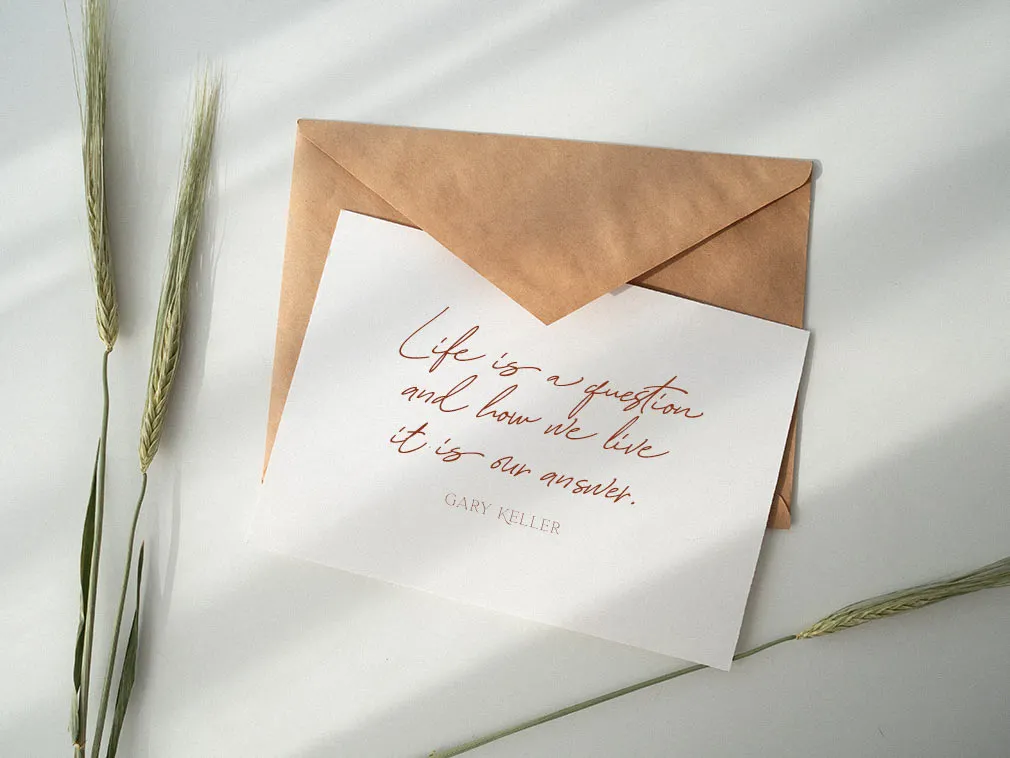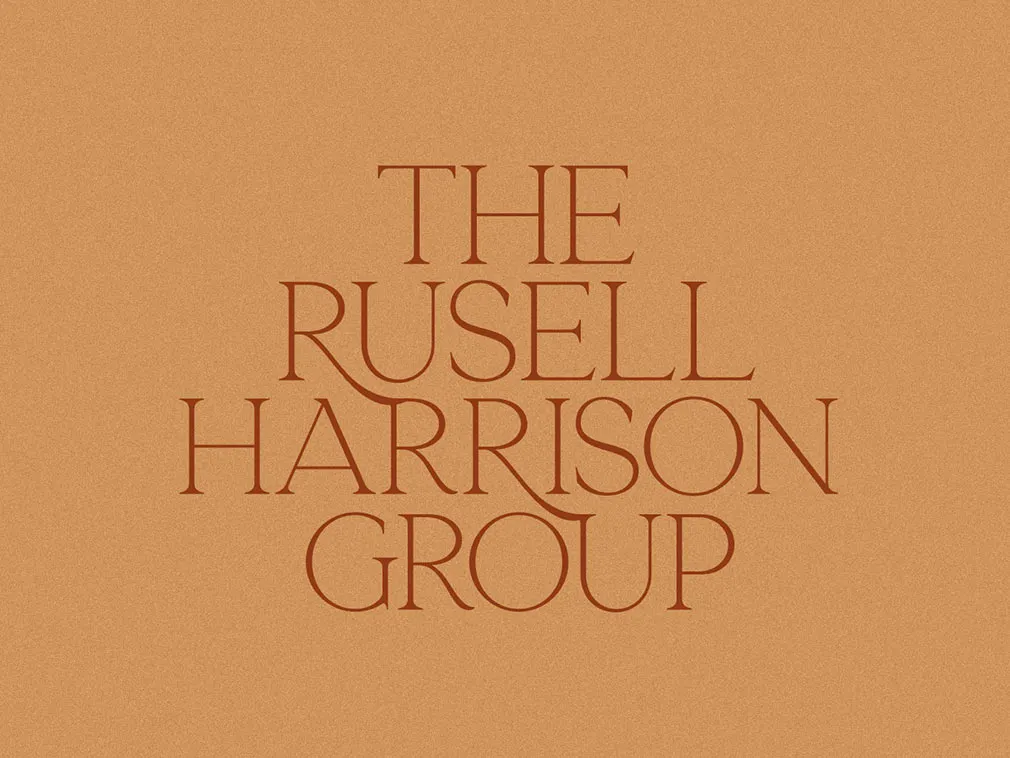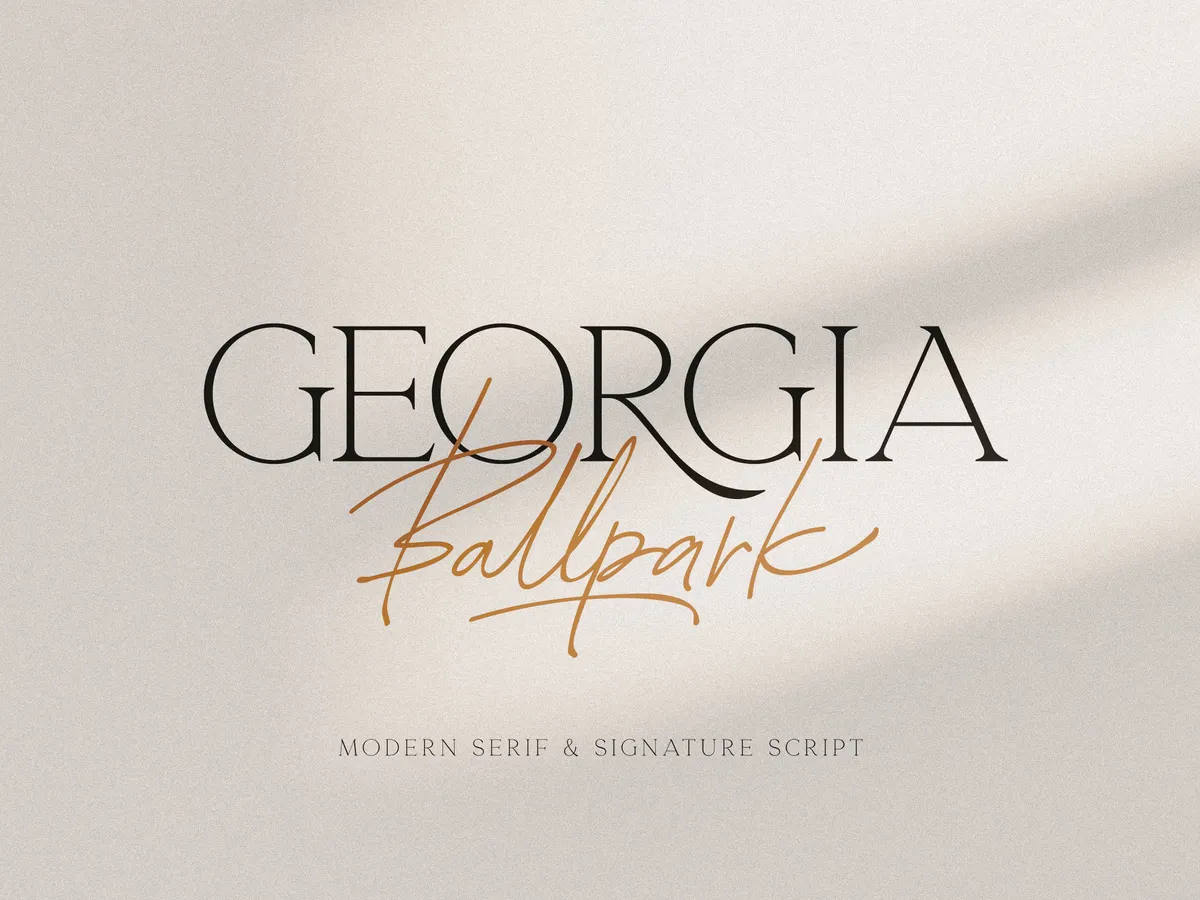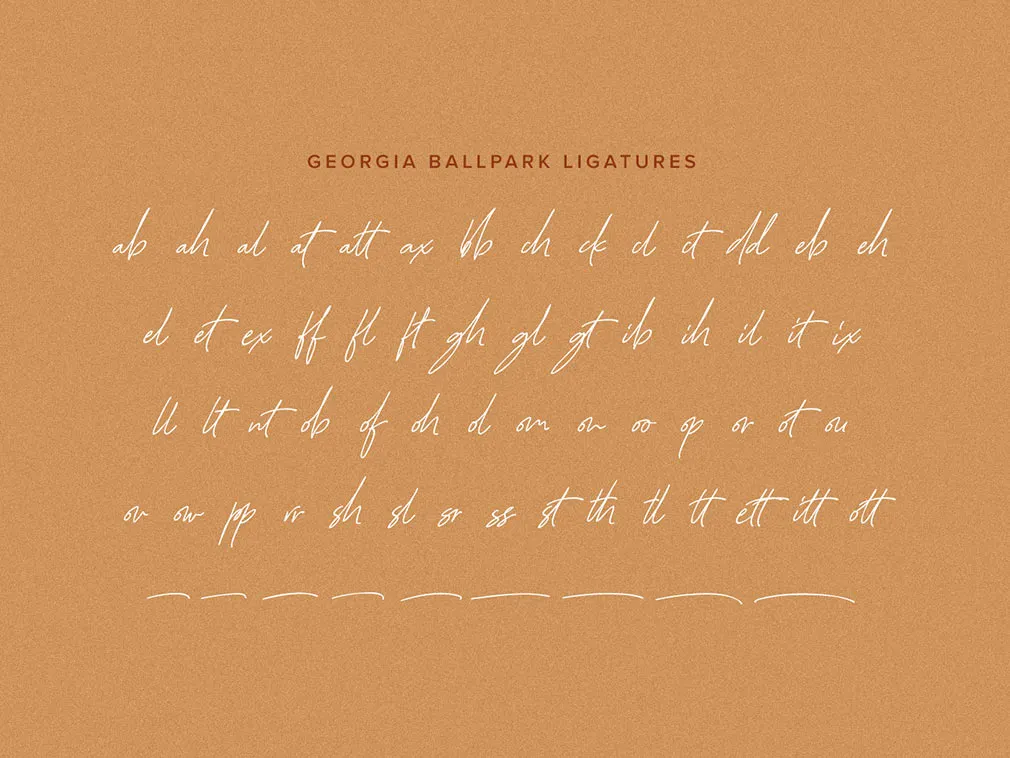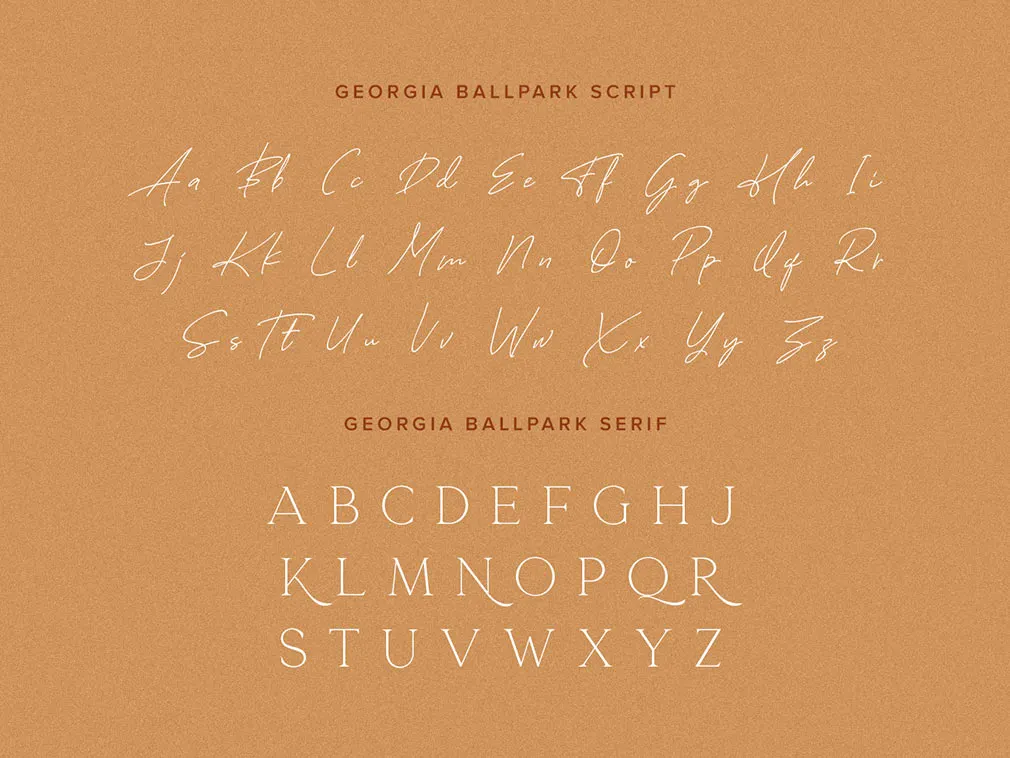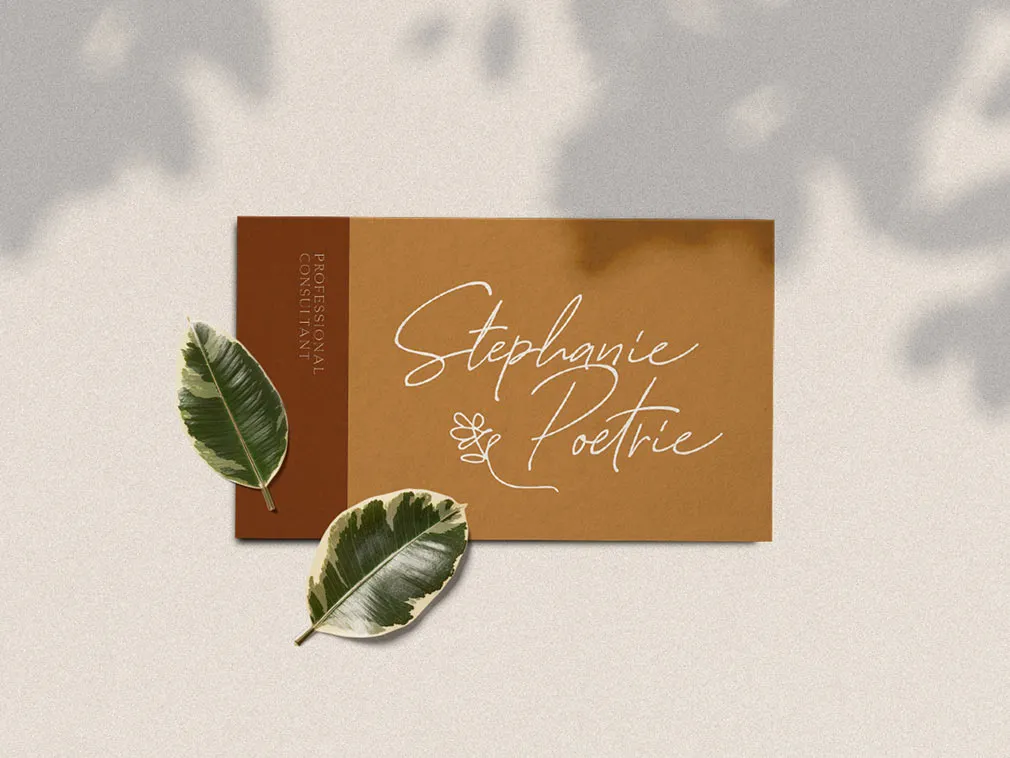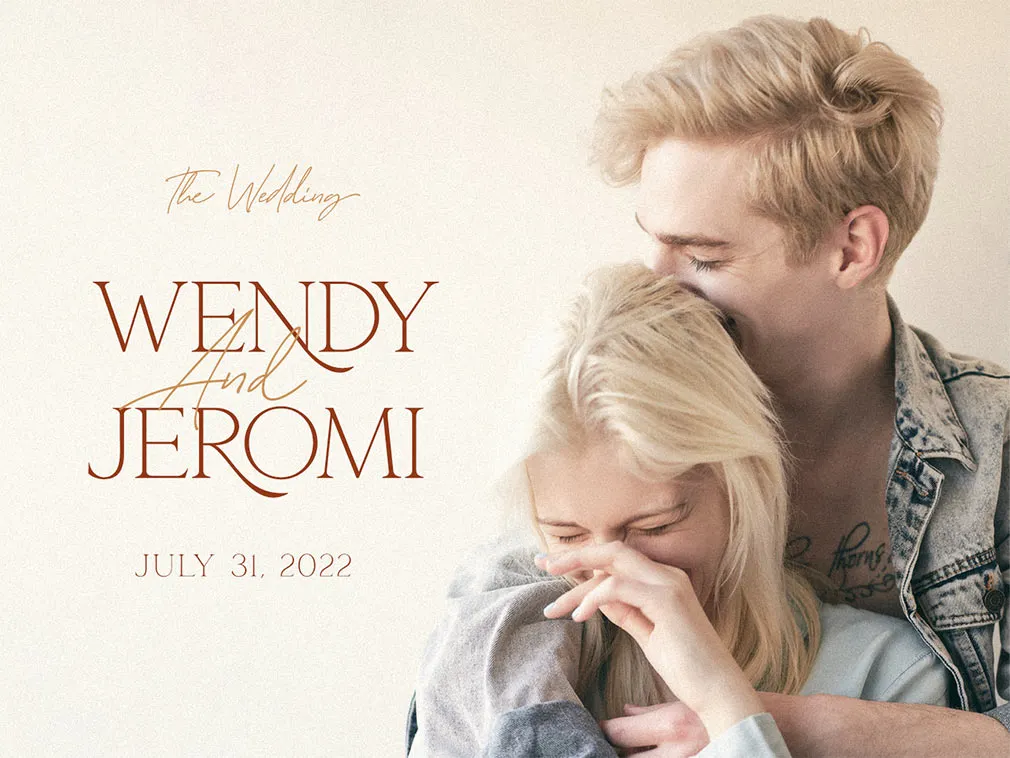
Georgia Ballpark Font Duo
You've seen so many flourishing font duets, that this one won't be a striking discovery for you. But it's not pulling out all the stops to be the best, it's just gorgeous itself, ready to be loved.
Georgia Ballpark is a perfect combination of modern serif with a signature script font. The package contains 2 fonts: the delicate modern serif and a free handwriting script. This font duo also supports multilingual characters, numbers and symbols, swashes and many ligatures. Also this font already PUA Encoded, mind that. Let this combination come to your photos, collages, branding designs, decorate stationery, business cards or posters.